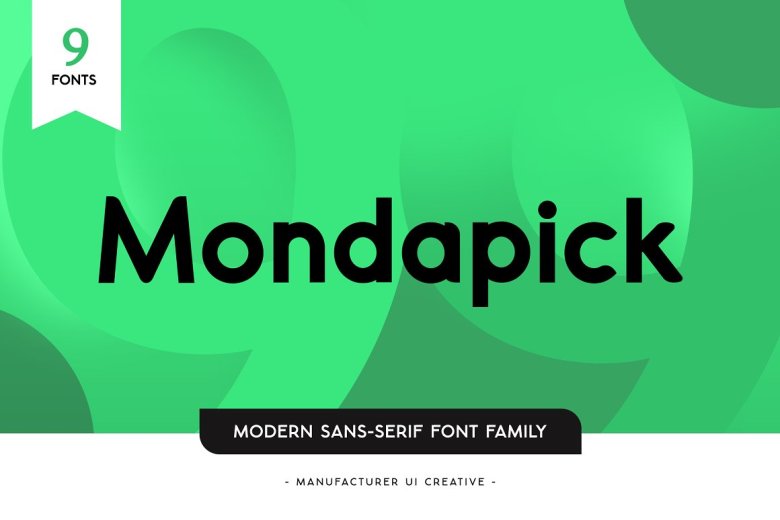
Mondapick Font
Mondapick is a contemporary sans serif font family that looks both beautiful and refined, elegant, stylish, whatever you want the modern design to perform. This font is well suited to a wide range of projects, such as signature, stationery, logo, wedding, wallpaper, typography quotes, magazine or book covers, web headers, clothing tags, branding and packaging design, among others.
Mondapick Sans Serif Font Family